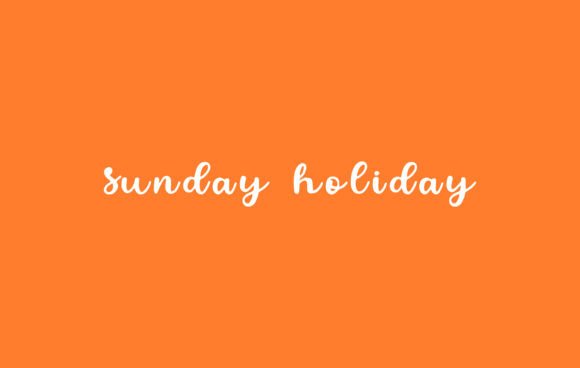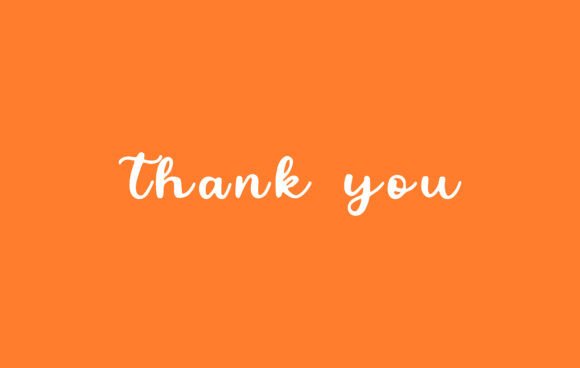
The Elegance of Decorative Font: A Designer’s Delight
I’ll never forget the time I was working on a wedding stationery project, and my client asked for a font that exuded elegance and sophistication. I scoured the internet, tried out countless fonts, but nothing seemed to fit the bill. That was until I stumbled upon the Decorative font. With its smooth, fluid strokes and graceful personality, it was love at first sight! 💕
In this article, we’ll dive into the world of Decorative font, exploring its features, uses, and what makes it a perfect choice for designers, crafters, and creative hobbyists.
- ✨ Smooth, fluid strokes that give it a handmade feel
- ✅ Elegant and sophisticated, perfect for high-end designs
- 💫 Highly versatile, suitable for various design projects, from greeting cards to social media quotes
- 🎨 Beautifully crafted, with attention to detail and a clear focus on aesthetics
While Decorative font is an excellent choice, there are a few things to keep in mind: 🤔
- ⚠️ Limited use in body text, as it’s primarily designed for headlines and titles
- ⚠️ May not be suitable for very small font sizes, as some details may get lost
One of the standout features of Decorative font is its support for OpenType features and glyphs. These allow you to:
- Access stylistic alternates and swashes to add more flair to your text
- Use ligatures to create beautiful, flowing connections between letters
- Explore a range of glyphs, from ornaments to flourishes, to enhance your design
The Designer Inspiration Behind Decorative Font
While the true story behind Decorative font’s creation may be unknown, it’s easy to imagine a designer sitting at their desk, pen in hand, pouring their heart and soul into creating a font that exudes elegance and sophistication. Perhaps they were inspired by the flowing scripts of calligraphy, or the beauty of handwritten letters. Whatever the inspiration, the result is a font that’s both timeless and modern.
Q: What is the best way to use Decorative font?
A: Decorative font is best used for headlines, titles, and short bursts of text where you want to make a statement. It’s perfect for designs that need a touch of elegance and sophistication.
Q: Can I use Decorative font for body text?
A: While Decorative font is beautiful, it’s not ideal for body text. It’s primarily designed for headlines and titles, and may be too ornate for longer blocks of text.
Q: Is Decorative font suitable for digital use?
A: Absolutely! Decorative font is designed to look great on screen, and is perfect for social media graphics, blog posts, and other digital designs.